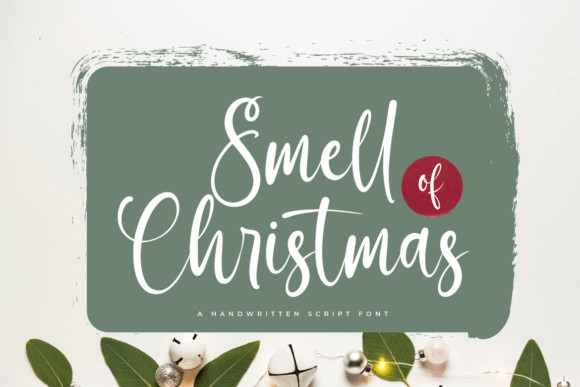
Smell of Christmas Font: The Ultimate Holiday Design Essential
The holiday season is upon us, and with it comes the desire to create festive and captivating designs that evoke the spirit of Christmas. One of the most effective ways to add a touch of elegance and charm to your holiday designs is by using the Smell of Christmas font. This beautiful font is specifically designed to capture the essence of the holiday season, making it the perfect addition to any Christmas-themed project.
The Elegance of Smell of Christmas Font
Smell of Christmas font is characterized by its elegant and charming style, which is sure to bring a touch of sophistication to any design project. Its graceful curves and refined letterforms make it a standout among other holiday fonts, offering a unique and stylish aesthetic that’s perfect for a variety of design needs.
Whether you’re creating Christmas-themed quotes, promotional materials, branding designs, valentines, weddings, or product packaging, Smell of Christmas font is the perfect choice. Its versatility extends to various design needs, providing a stylish and enchanting touch that elevates your work and sets it apart from the rest.
Perfect for Christmas-Themed Creations
Smell of Christmas font is specifically designed with the holiday season in mind, making it the perfect choice for any Christmas-themed project. Its festive and elegant style is sure to evoke the spirit of Christmas, adding a delightful flair to any design.
From holiday greeting cards to Christmas-themed promotional materials, Smell of Christmas font is the perfect addition to any design project. Its charming and sophisticated style is sure to capture the attention of your audience and leave a lasting impression.
Versatility at Its Best
One of the standout features of Smell of Christmas font is its versatility. It’s not just limited to Christmas-themed designs; it can be used for a variety of other design needs, including:
- Valentines: Add a touch of romance and elegance to your Valentine’s Day designs with Smell of Christmas font.
- Weddings: Use Smell of Christmas font to add a sophisticated and charming touch to your wedding designs, including invitations, programs, and more.
- Product Packaging: Elevate your product packaging with the elegant and stylish Smell of Christmas font, perfect for seasonal or holiday-themed packaging.
- Branding Designs: Use Smell of Christmas font to add a touch of sophistication and elegance to your branding designs, including logos, business cards, and more.
Standard Multi-Language Support
Smell of Christmas font comes with standard multi-language support, ensuring its usability across different cultural contexts. This means you can use the font to create designs for a global audience, without worrying about language limitations.
With Smell of Christmas font, you can create designs that are not only visually appealing but also accessible to a wider audience. This makes it the perfect choice for businesses, designers, and individuals who want to create holiday designs that resonate with people from diverse cultural backgrounds.
Tips for Using Smell of Christmas Font
To get the most out of Smell of Christmas font, here are some tips to keep in mind:
- Pair it with complementary fonts: Smell of Christmas font pairs well with clean and simple fonts, such as Arial or Helvetica. Experiment with different font combinations to find the perfect match for your design.
- Use it in moderation: While Smell of Christmas font is elegant and charming, it’s essential to use it in moderation. Too much of a good thing can be overwhelming, so balance it with other design elements to create a visually appealing design.
- Experiment with colors: Smell of Christmas font looks great in a variety of colors, from traditional holiday colors like red and green to more modern and bold colors. Experiment with different color combinations to find the perfect match for your design.
Smell of Christmas font is a beautiful and elegant font that’s perfect for adding a touch of sophistication and charm to your holiday designs. Its versatility, standard multi-language support, and stylish aesthetic make it a must-have for any designer, business, or individual looking to create captivating holiday designs.
Whether you’re creating Christmas-themed quotes, promotional materials, branding designs, valentines, weddings, or product packaging, Smell of Christmas font is the perfect choice. So why wait? Embrace the festive spirit and infuse your designs with the warmth and elegance of Smell of Christmas font.